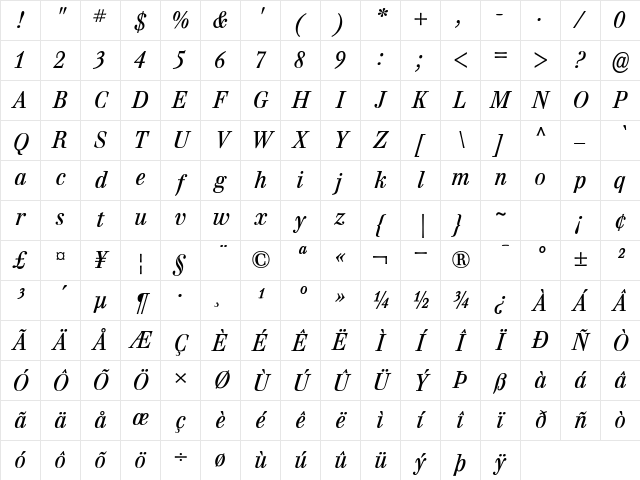
WalburnText Italic Free Font
WalburnText Italic
Design Context for WalburnText
WalburnText is a composed and adaptable typeface that performs quietly and consistently across a wide range of design contexts. The slanted form adds forward momentum and visual energy.
Pro Tip: Use WalburnText for emphasis, pull quotes, and subheadings where its slanted energy can add rhythm to the layout.